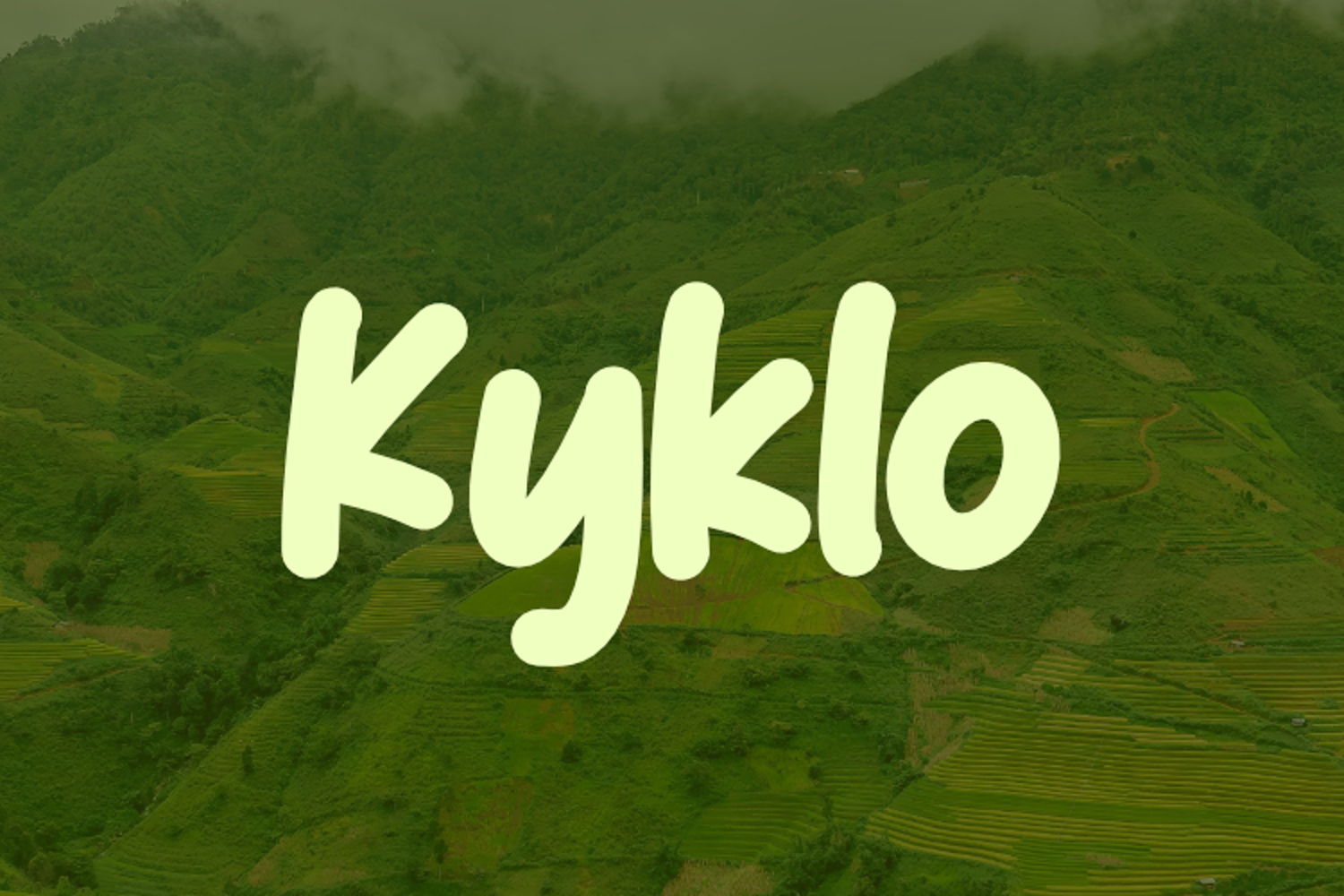
Kyklo
Introduction Kyklo is a modern and elegant typeface designed for flexibility and excellent readability across a wide range of media. With its .otf (OpenType Font) file format, it offers superior cross-platform compatibility, making it an ideal choice for all design software and office applications, including Adobe Creative Suite, Microsoft Office, and other design software.